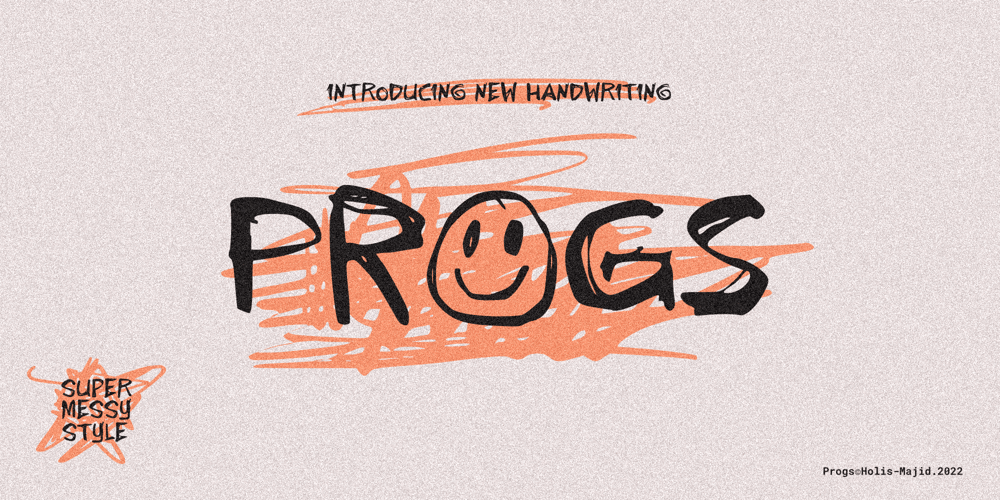
Progs
Progs font
Progs Font Family was designed by Holis Majid and published by Holis.Mjd. Progs contains 1 styles and family package options. Progs Font is a messy, disorganized handwriting font equipped with several unique special alternates in the uppercase “O” and lowercase “o” letters, looks natural and realistic, suitable for social media, branding, quotes, packaging labels and other designs.